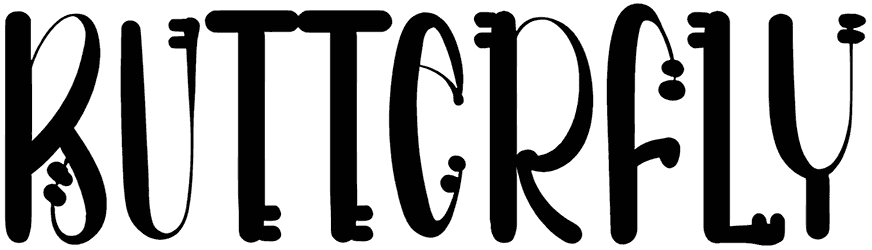
Butterfly Font
It is never too late for selecting a unique calligraphy font such as Butterfly which comes with a cursive style that dances along the baseline. Due to its soft flow, it can lead to a feeling of feminine, dynamic, vivacity, or personalization.
If you are stranded for a suitable artwork to design cosmetic product packaging, social media posts, book covers, logos, and flyers, this all-caps butterfly font can be ideal.